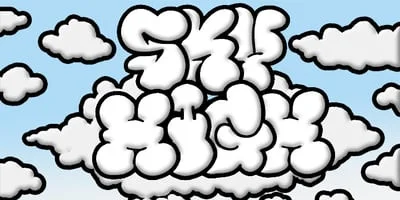
High Sky Font
High Sky Font is perfect for aviation company branding, airline logo designs, aerospace industry materials, skydiving adventure campaigns, cloud computing service logos, weather forecast presentations, drone technology signage, and soaring achievement marketing materials. This uplifting typeface excels in applications where aerial freedom and limitless possibilities are essential.
What makes High Sky Font so exciting is its inspiring ability to capture the boundless freedom and infinite possibilities of the open sky through elevated, cloud-inspired letterforms that embody the exhilarating feeling of flight and the limitless potential of reaching new heights. The font features soaring character shapes with aerial influences and sky-reaching styling that evoke images of aircraft soaring through clouds, endless blue horizons, and the liberating sensation of being above the world. Its elevation-focused design philosophy combines aviation authenticity with contemporary aspiration, making it perfect for aerospace brands seeking to convey unlimited potential, freedom of movement, and connection to aviation communities and sky exploration culture.
High Sky Font belongs to the aerial display font family, specifically designed for aviation and sky-themed branding applications. This typeface family emphasizes uplifting visual impact through flight-inspired styling and atmospheric character elements, ensuring authentic aviation presentation across various aerospace and sky exploration-focused design projects.
Soar to new heights with High Sky Font, a typeface that embodies the limitless freedom of open skies and aviation excellence. This uplifting font delivers exceptional inspiration for aerial applications, featuring comprehensive character sets with aviation symbols and sky punctuation marks that capture the essence of flight freedom and atmospheric beauty. Its elegantly soaring letterforms maintain excellent readability while preserving the authentic sky aesthetic across various sizes, from small aircraft labels to massive airport terminal displays. The font's distinctive aerial personality makes it invaluable for designers creating aviation brands, aerospace materials, and sky content where conveying freedom, limitless potential, and aerial excellence is crucial for engaging aviation enthusiasts and sky exploration communities seeking authentic flight experiences and inspiring, boundary-breaking atmospheric adventures.